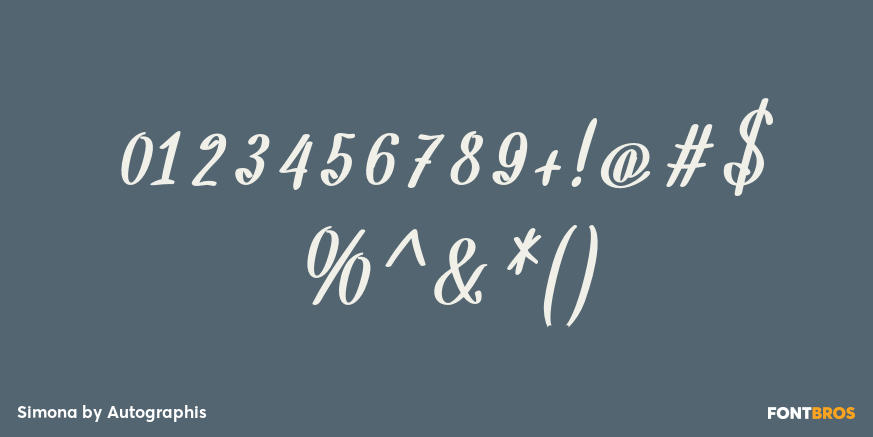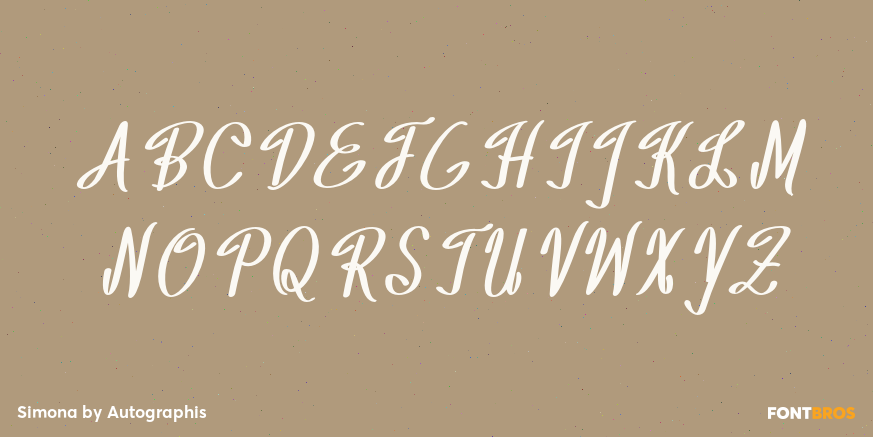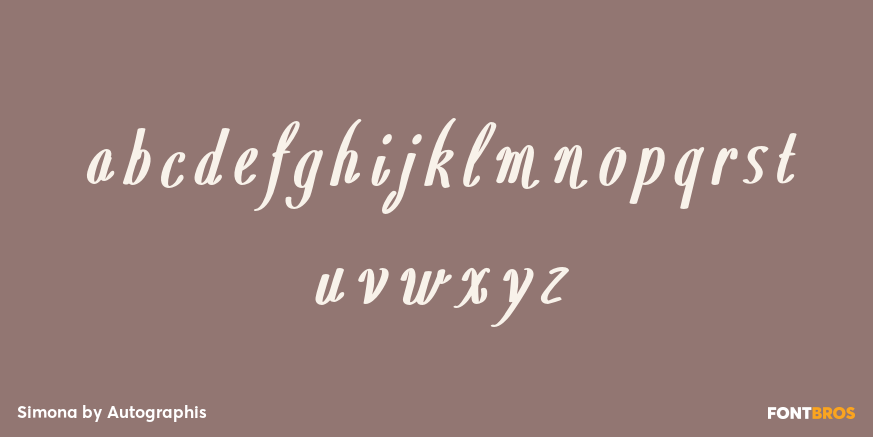
Simona
Font Family by Autographis
Simona is is a very lively narrow script designed in the style of the classic American advertising font from the forties or fifties.